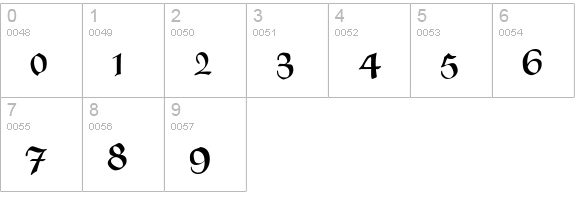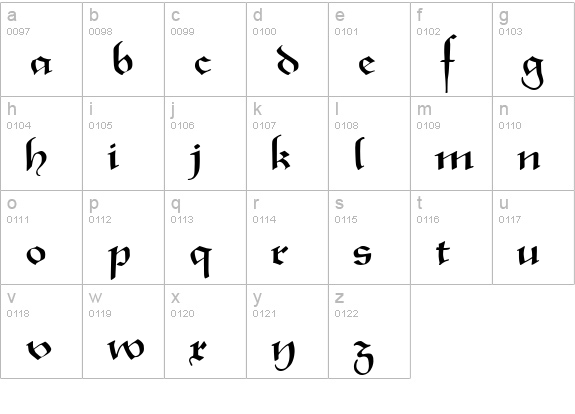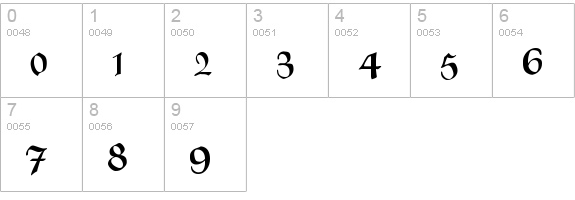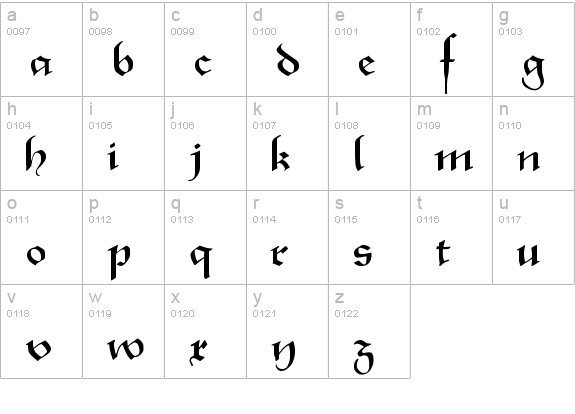
XmasTerpiece Font Details
Introducing XmasTerpiece font, a captivating and enchanting typeface that perfectly captures the essence of the holiday season. With its whimsical curves and delicate strokes, XmasTerpiece brings to life the magic and joy of Christmas in every letter. This font is truly a masterpiece, designed with meticulous attention to detail to ensure that each character evokes a sense of warmth and nostalgia. The elegant and decorative elements of XmasTerpiece make it the perfect choice for all your holiday-themed projects, from greeting cards and invitations to posters and advertisements. What makes XmasTerpiece even more special is that it is freely available to download at FontsMarket.com. Yes, you heard it right – this extraordinary font can be yours at no cost! Simply visit FontsMarket.com, and with just a few clicks, you can bring this festive font into your creative arsenal. Whether you're a professional designer looking to add a touch of holiday cheer to your work or simply a DIY enthusiast wanting to create personalized gifts and decorations, XmasTerpiece font is the ideal choice. Its versatility allows you to use it in various design applications, ensuring that your projects stand out and spread joy this Christmas season. So, don't miss out on this incredible opportunity to enhance your designs with a font that truly embodies the spirit of Christmas. Download XmasTerpiece today, exclusively at FontsMarket.com, and let your creativity shine with this enchanting and freely available font.